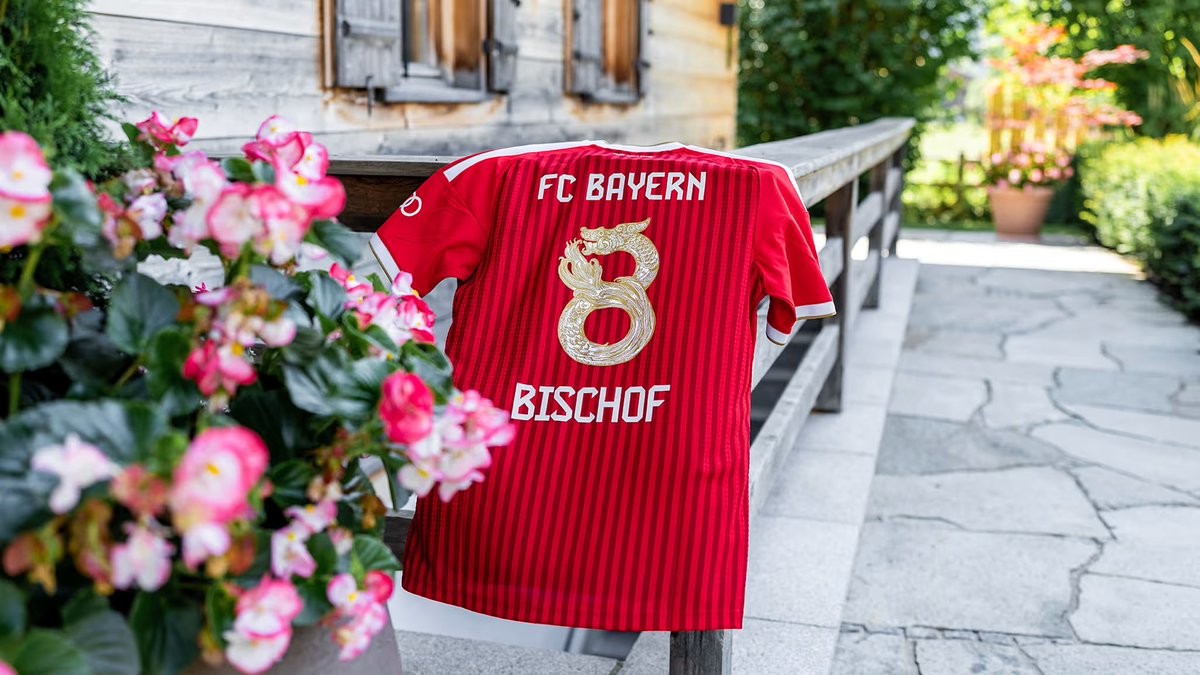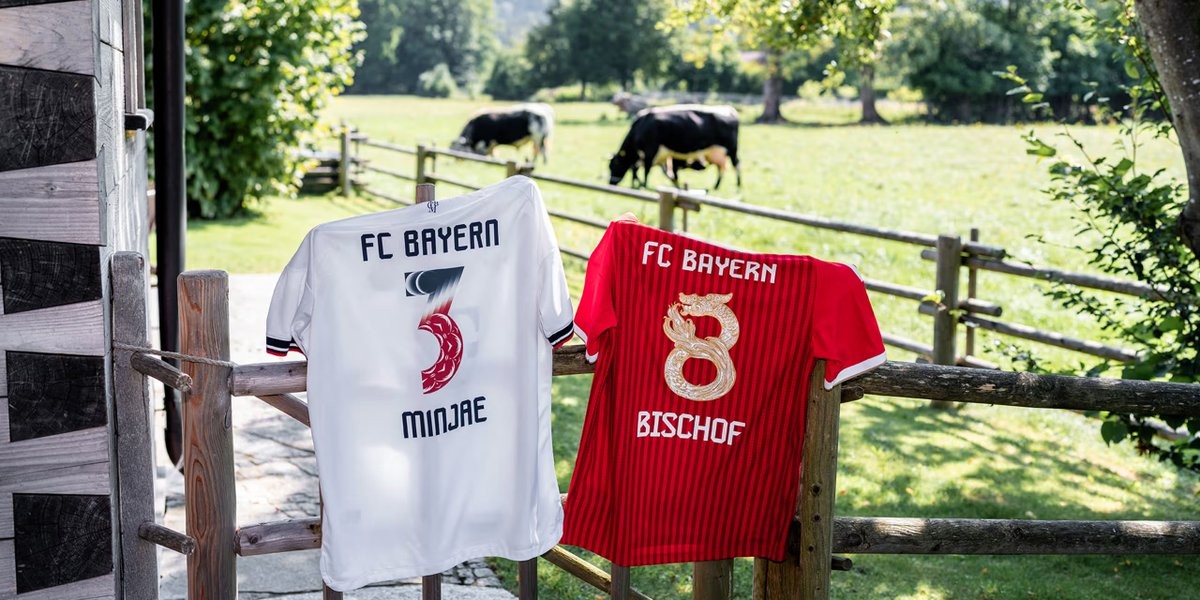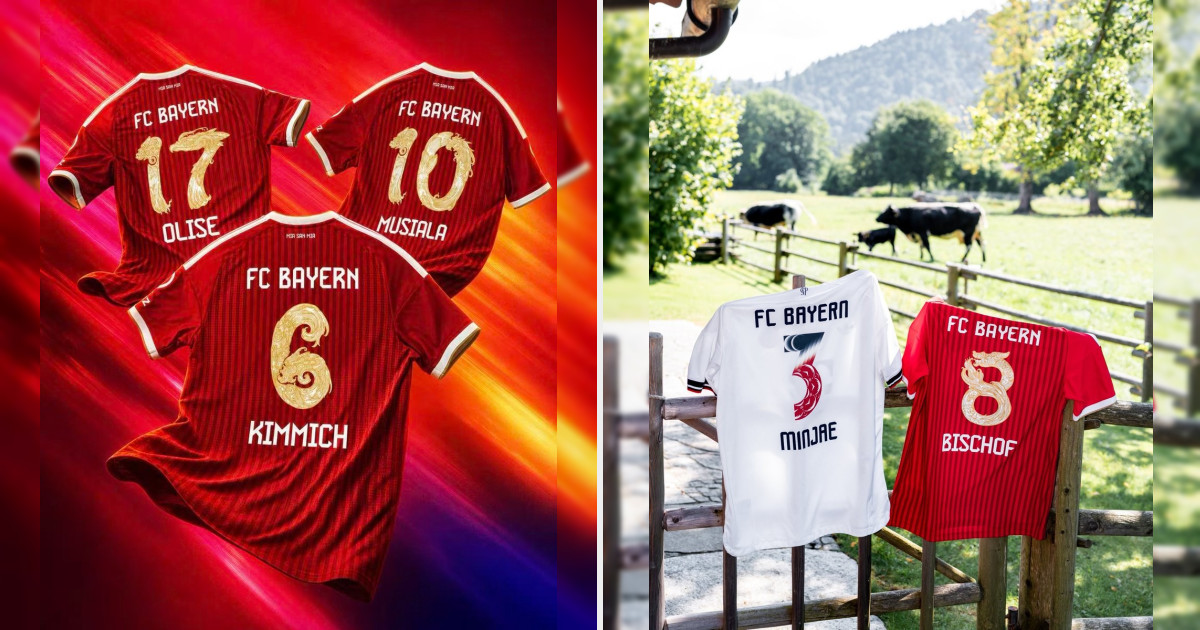
FC Bayern Reveal Special 26-27 Asian Tour Kit Fonts
FC Bayern München has officially unveiled two special-edition shirt namesets for their 26-27 pre-season Audi Summer Tour across South Korea and Hong Kong. Designed in collaboration with adidas and Hypebeast, the custom flocking designs will be worn on Bayern's 26-27 home and away kits during their friendly matches against Jeju SK and Aston Villa.
Each fixture features a unique font design rooted in local art and traditional culture. For the match on Jeju Island, South Korean artist Dohee Kwon created a design inspired by Gime, a traditional paper craft unique to Jeju that is tied to local rituals, incorporating sun and moon graphics into the numbers. For the friendly in Hong Kong, local artist Kristopher Ho crafted a gold-accented font featuring dragon motifs inspired by ancient Chinese aesthetics.